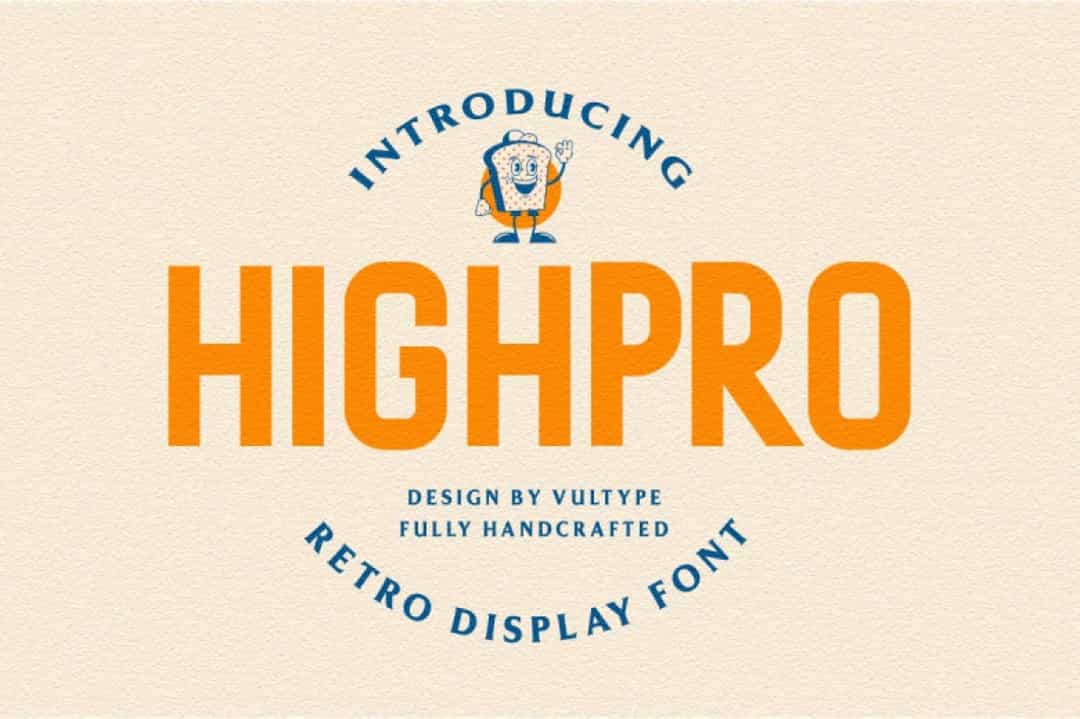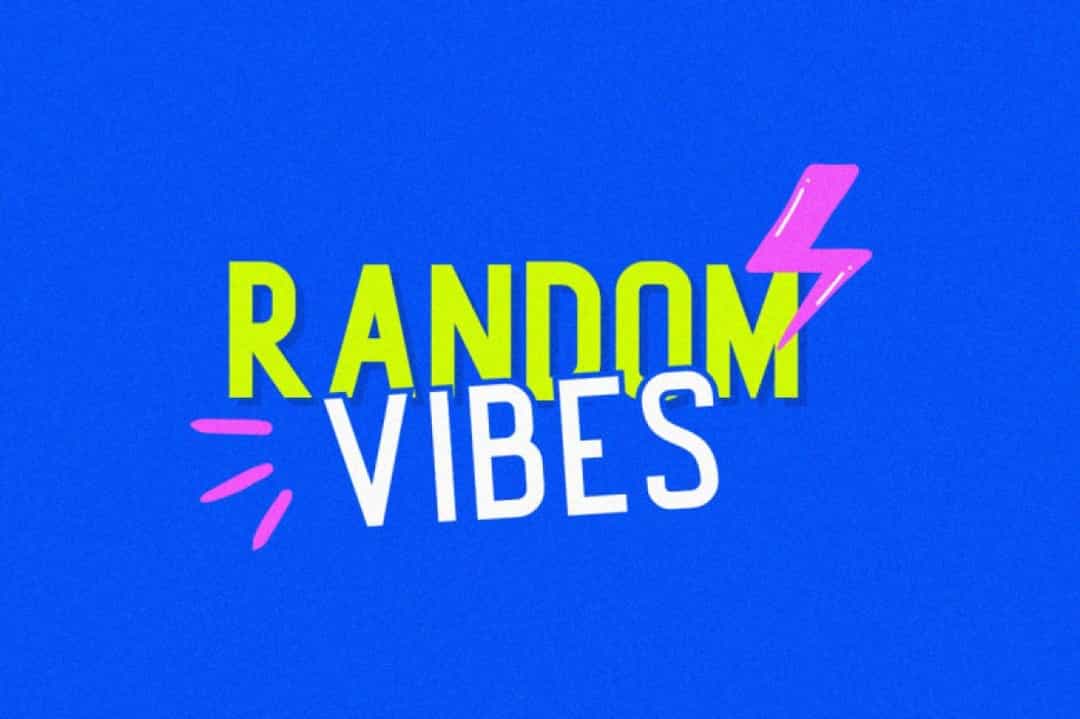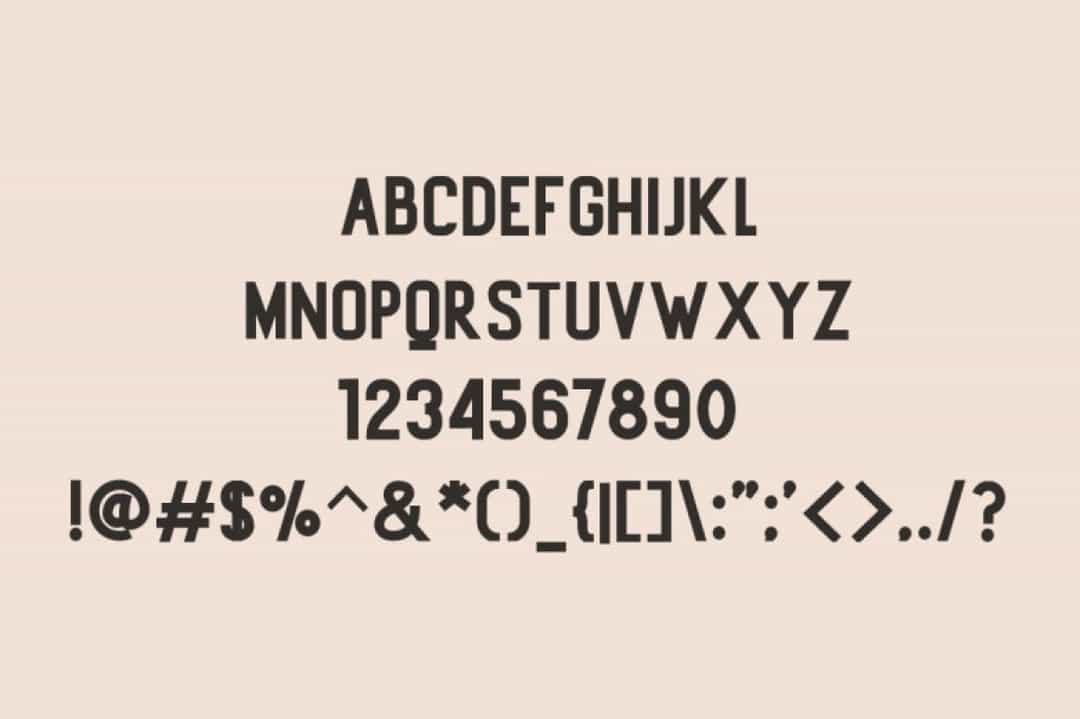
Highpro condensed Sans Serif Font is ideal for any of your future projects, from logo branding and editorial design, sports graphics and stationery design blogs to modern advertising design, invitation cards art home decor book/cover titles special events and much more.